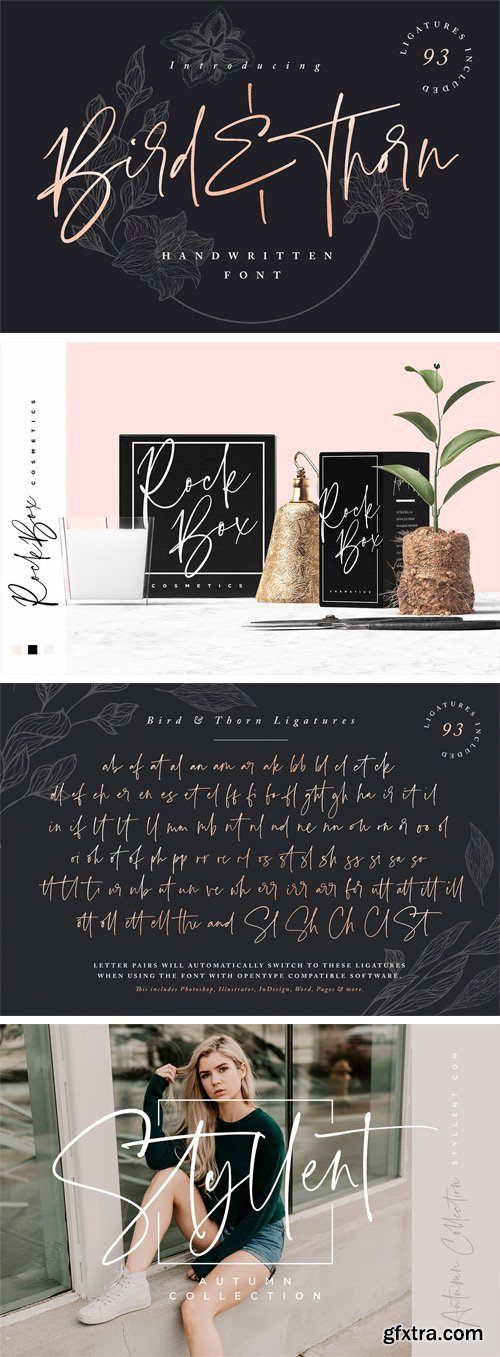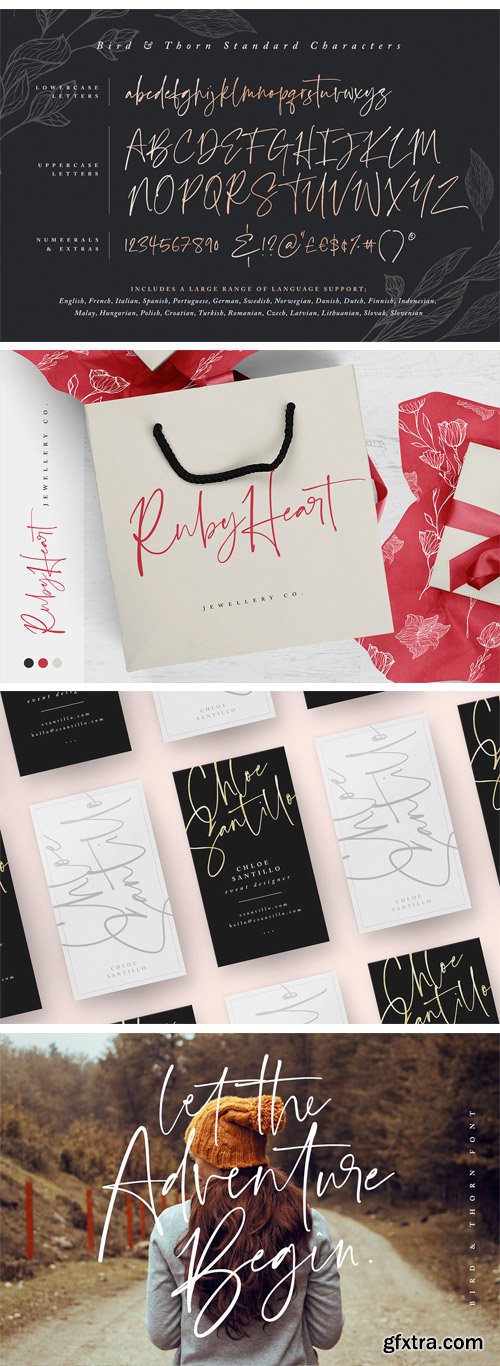
Bird And Thorn Font
Bird & Thorn is completely hand-drawn and designed to perfectly re-create natural handwriting; this is achieved by the addition of 93 custom ligatures. These double letters connect and flow much more authentically and are guaranteed to give your text that extra quality and distinction. It's the perfect choice for stylish branding & logo projects, product packaging, handwritten quotes & editorial design.